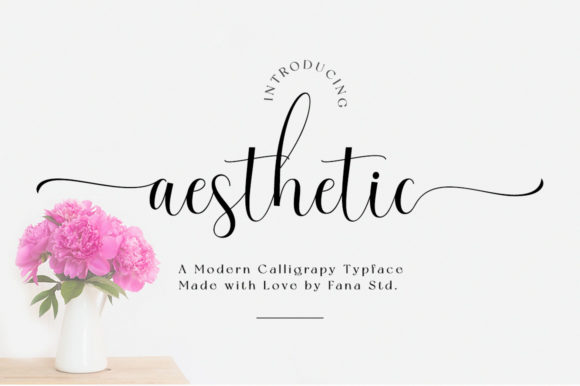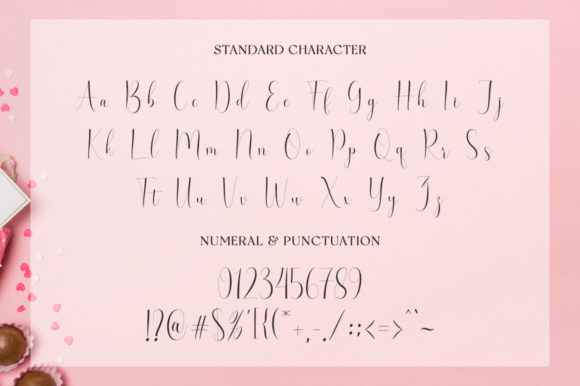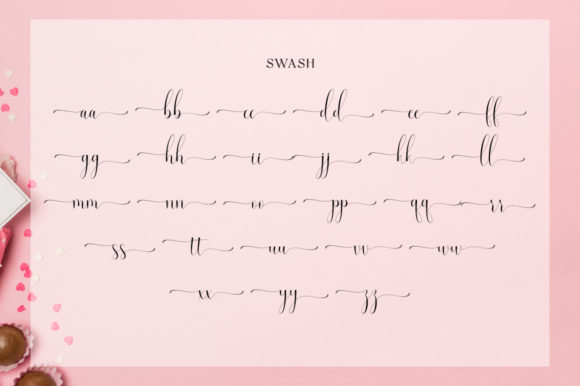
About Aesthetic Font
Aesthetic is a distinct graceful script font. Fall for its ravishing style and use it to create gorgeous designs. This font is PUA encoded which means you can access all of the glyphs and swashes with ease!